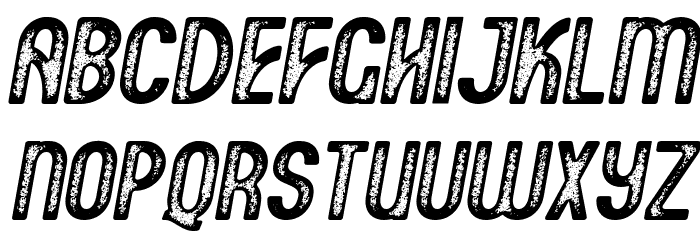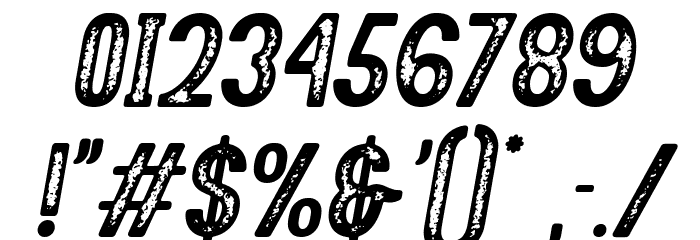
Motgan Stamp Oblique Font
This font features a bold, distressed style with a textured, stamp-like appearance. The characters are oblique, giving them a dynamic, forward-leaning posture. The texture adds a rugged, vintage feel, reminiscent of old printing techniques. Each letter is distinct, with a slightly uneven surface that enhances its handcrafted look. The font maintains a consistent weight throughout, ensuring readability while still offering a unique visual appeal. Its boldness and texture make it stand out, ideal for projects that require a strong, impactful presence.
A bold, textured, oblique font with a vintage, stamp-like appearance.
- Font: Motgan Stamp Oblique
- Proposed Projects: Ideal for branding, posters, packaging, and any design requiring a vintage or rugged aesthetic.
- Overall Style: Vintage